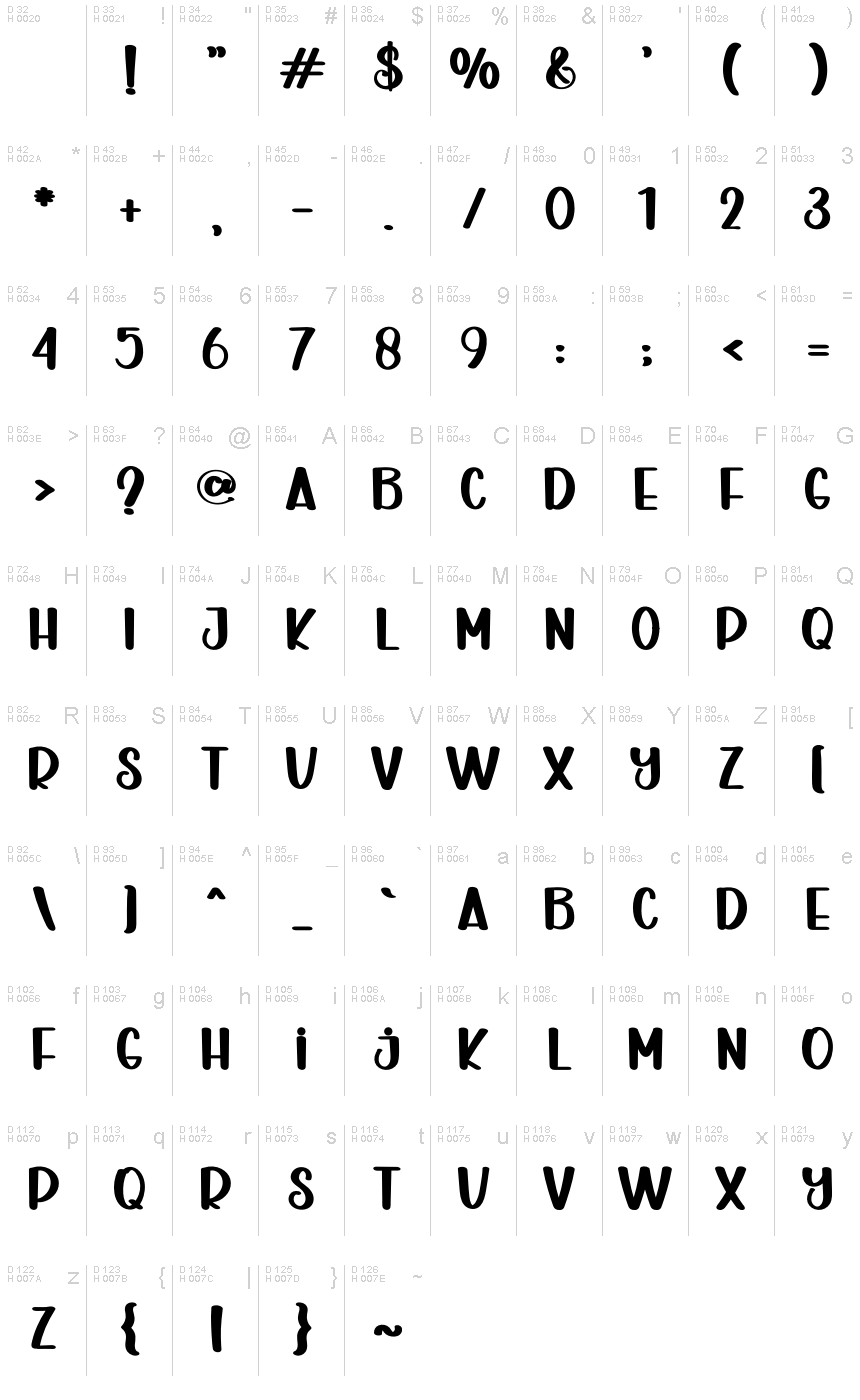
SIMPLE INTERIOR
Simple Interior, crafted by Inermedia Studio, is a handwritten font that exudes a sense of personal touch and warmth. Its semi-bold weight ensures legibility while maintaining an intimate and inviting feel. The aesthetic appeal of Simple Interior lies in its unassuming elegance; each stroke carries the imperfections and nuances typical of authentic handwriting, making it resonate with approachability and charm.
Ideal for projects that require a hint of humanity and familiarity, this font suits a range of creative endeavors—from branding to editorial design. Whether it's to give a homey feel to café menus or add character to personal blogs, Simple Interior's versatile style bridges the gap between professional design and the artistry of handcrafted work. Its ability to convey casual sophistication makes it an invaluable asset for designers seeking to infuse their projects with personality.